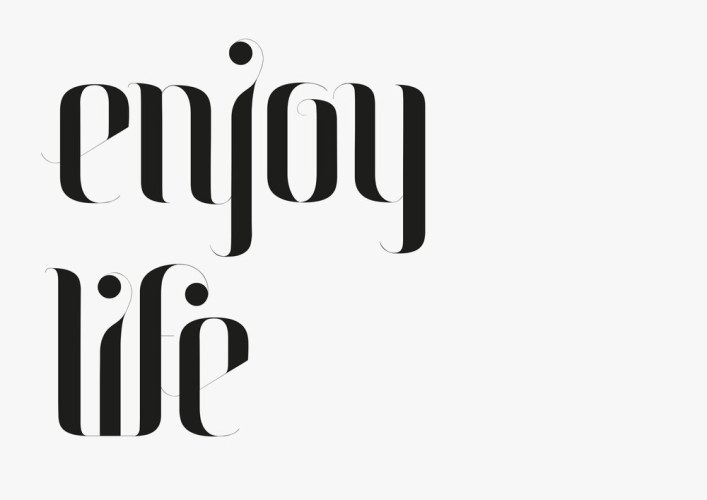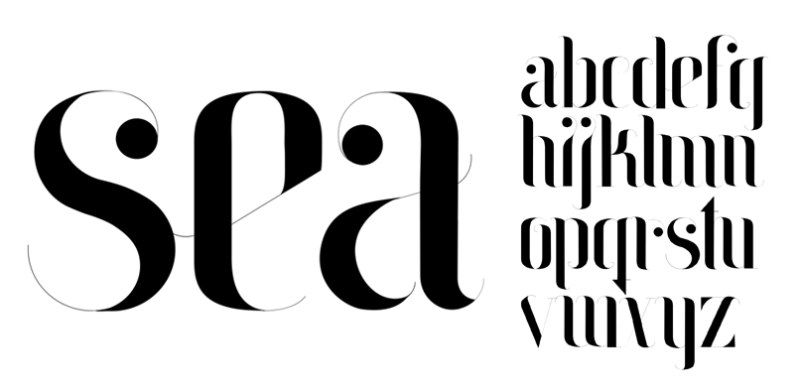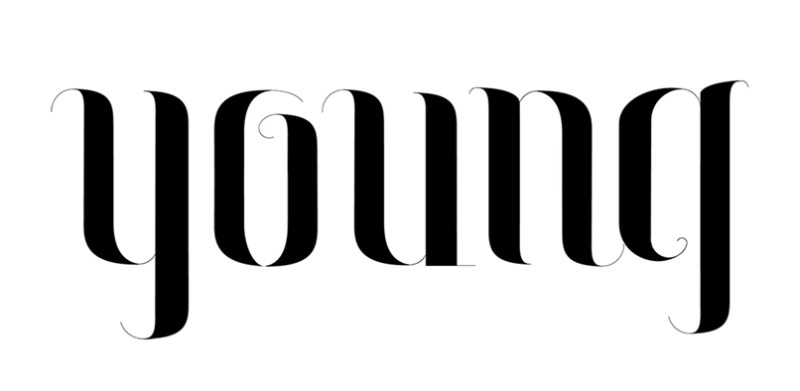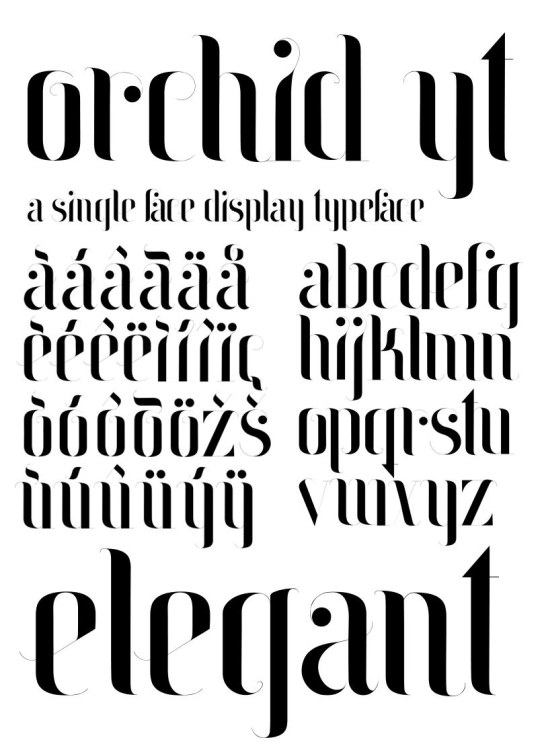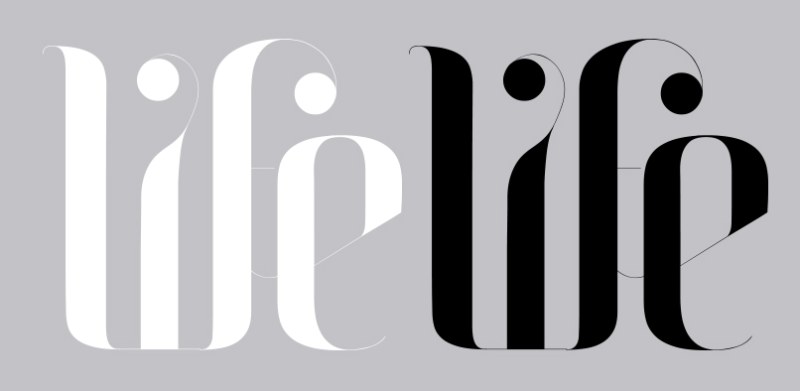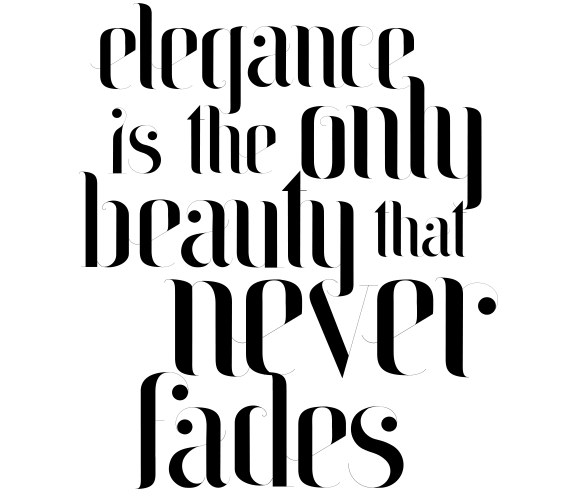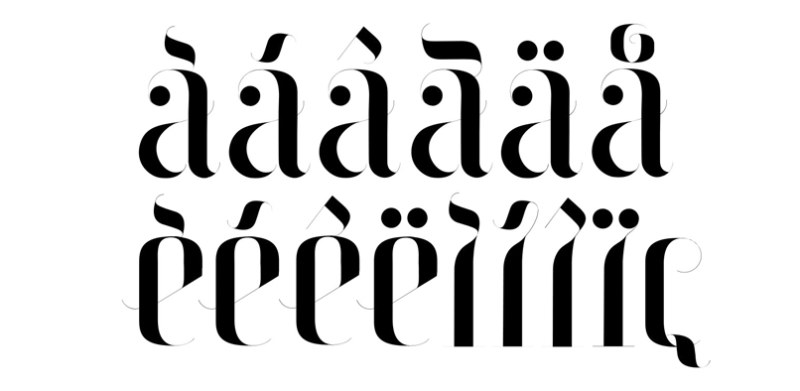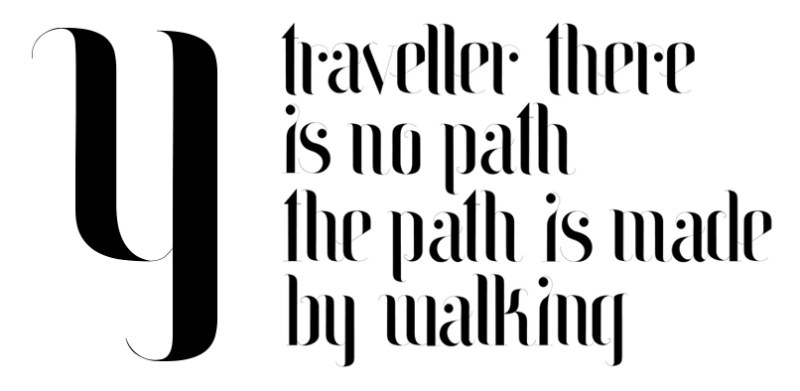
Orchid YT Font
Influenced by Gothic Script fonts and the motion of nature, Orchid YT has been designed as a typeface that works for both headlines and titles. Orchid YT is a font where the beauty resides in the frail details of each and every letter. Orchid YT combines script character with soft curves in order to explore motion in an elegant fashion.
Orchid YT Font is a Display Fonts font that brings a professional and versatile look to your projects. Influenced by Gothic Script fonts and the motion of nature, Orchid YT has been designed as a typeface that works for both headlines and titles.